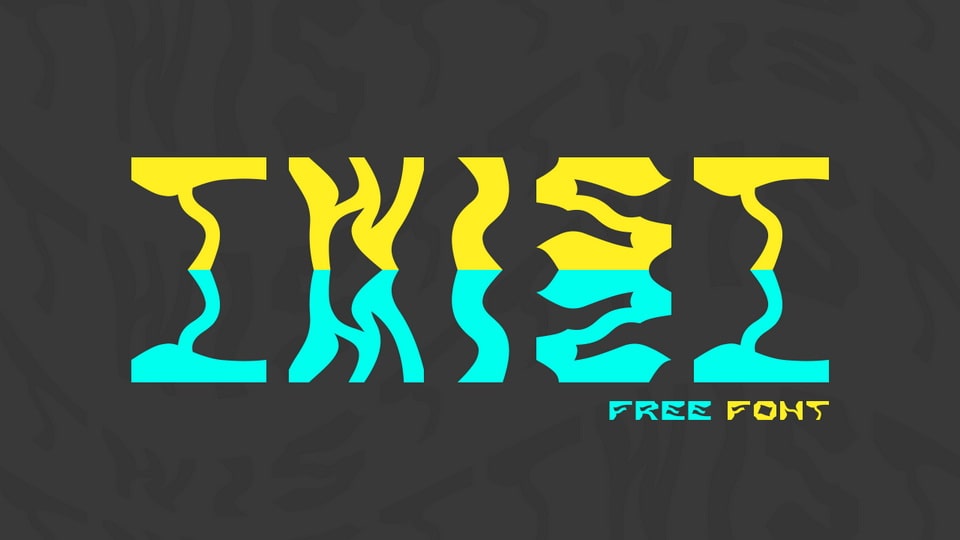
Download Twist Twist font, a bold distorted display typeface with a fancy look. Twist Twist is perfect for posters, album artworks, headlines, prints and any creative typography.